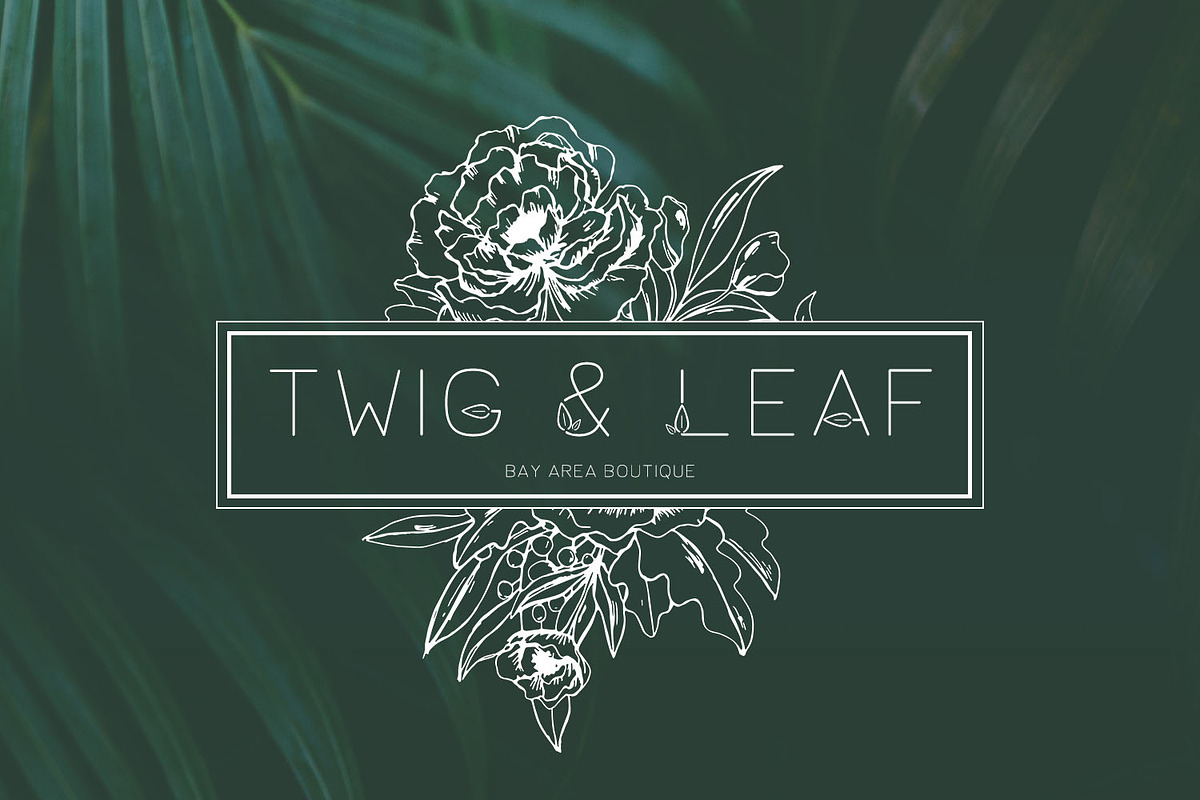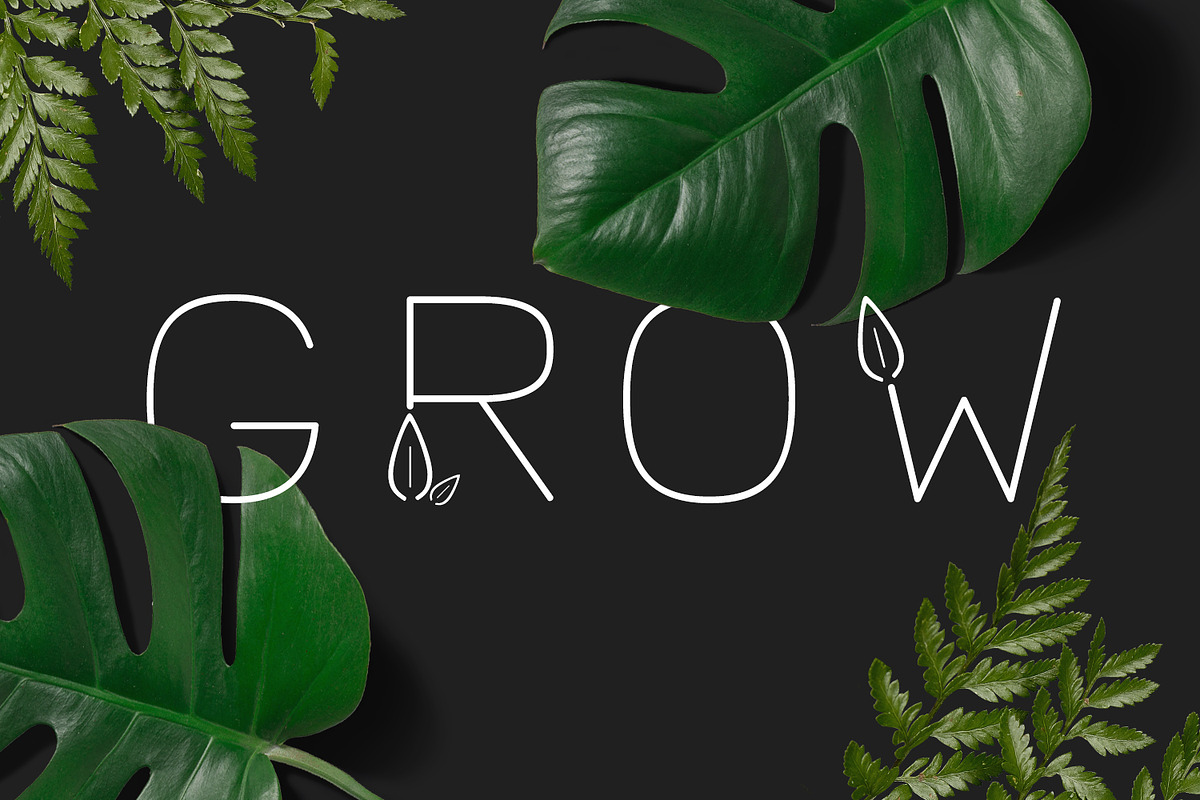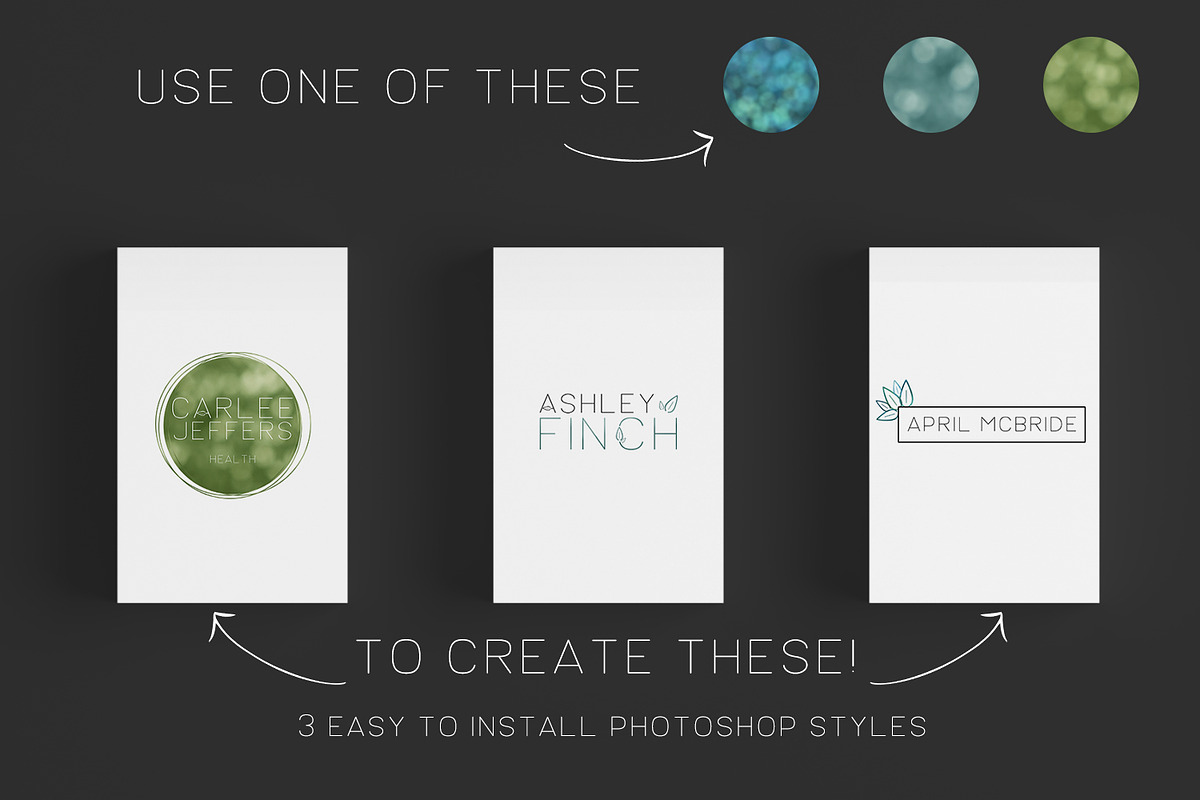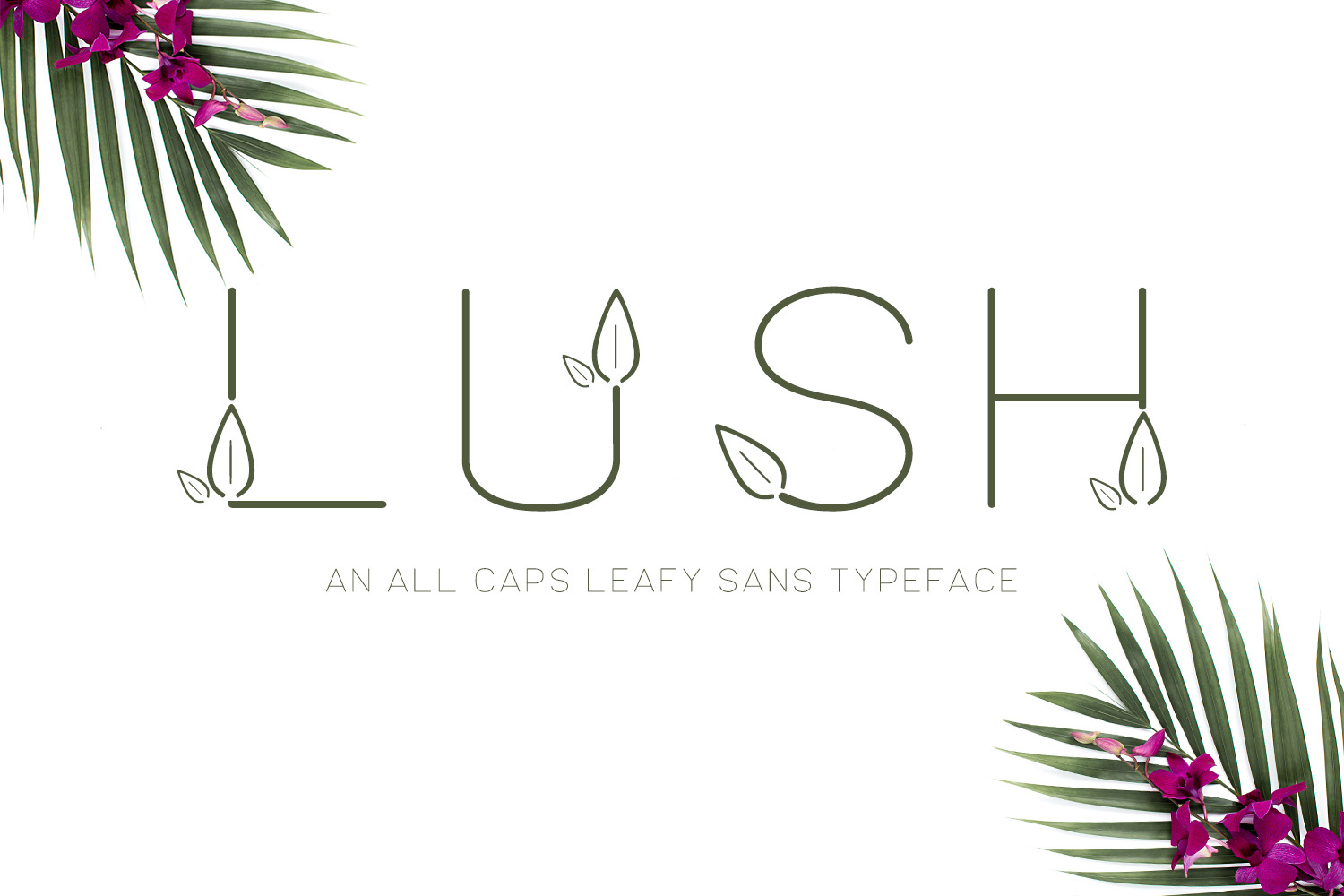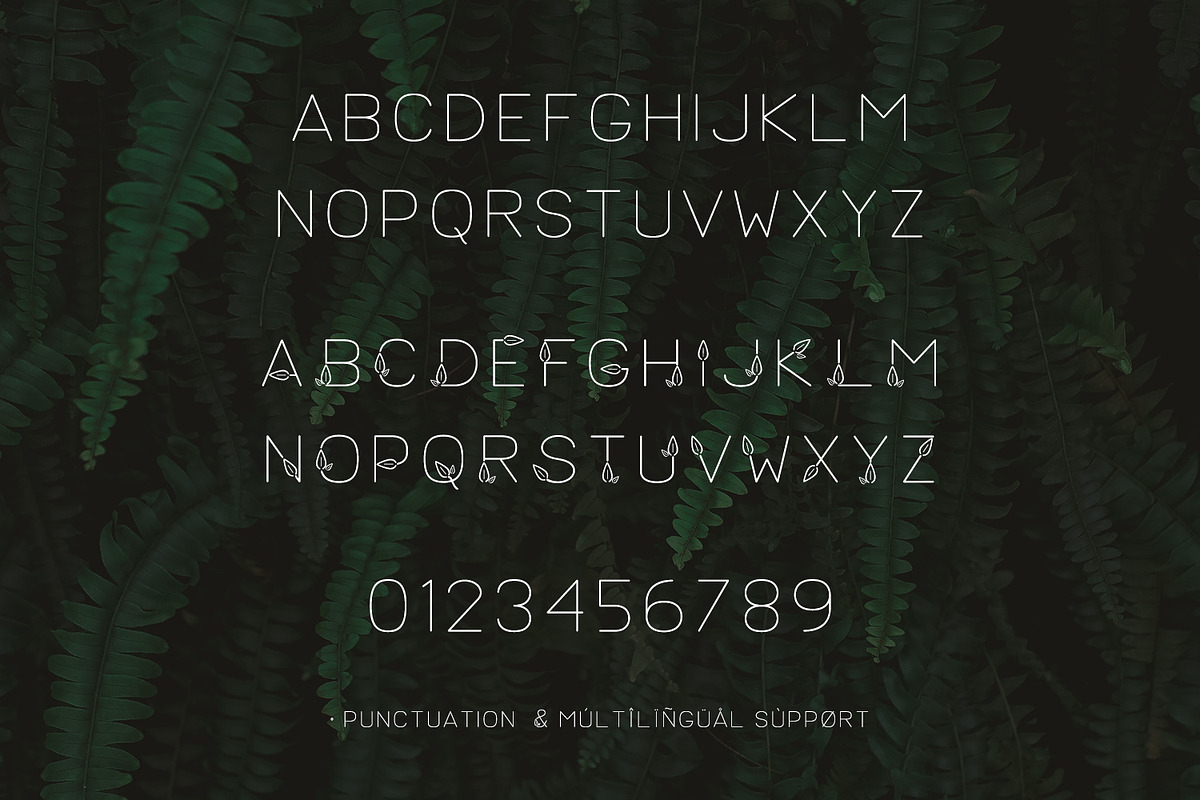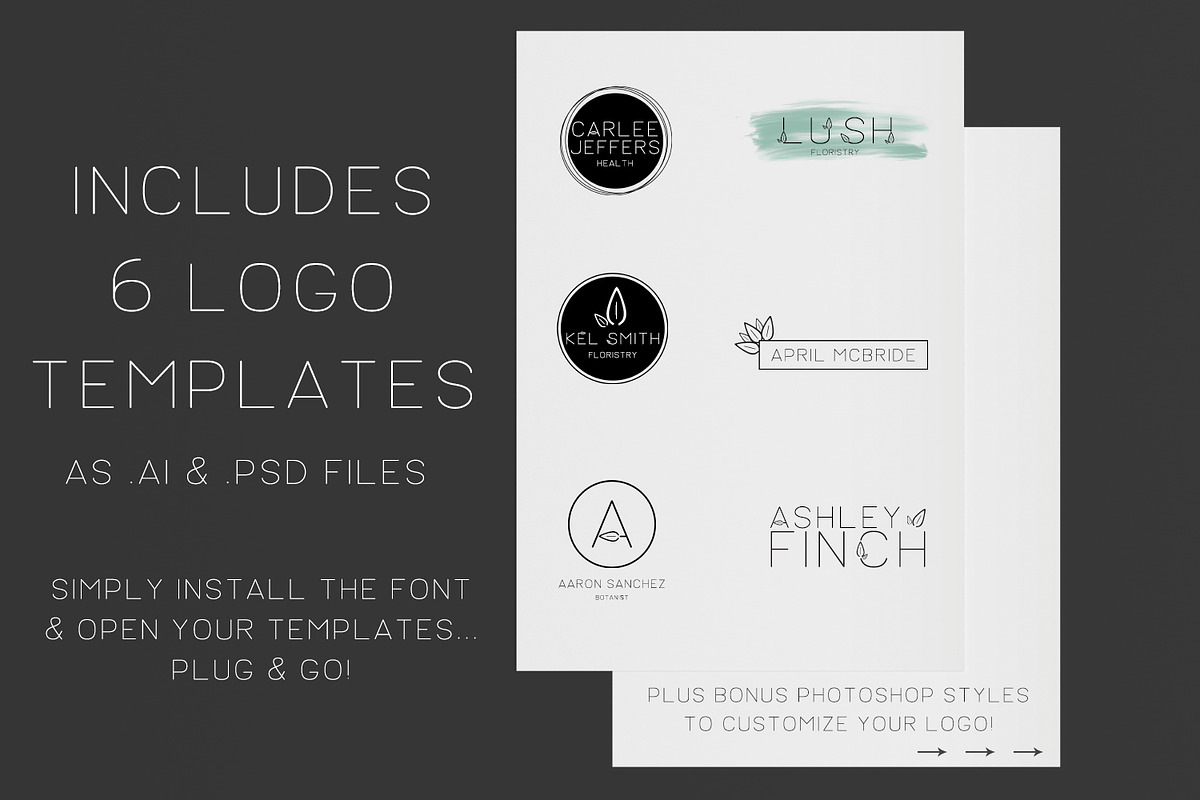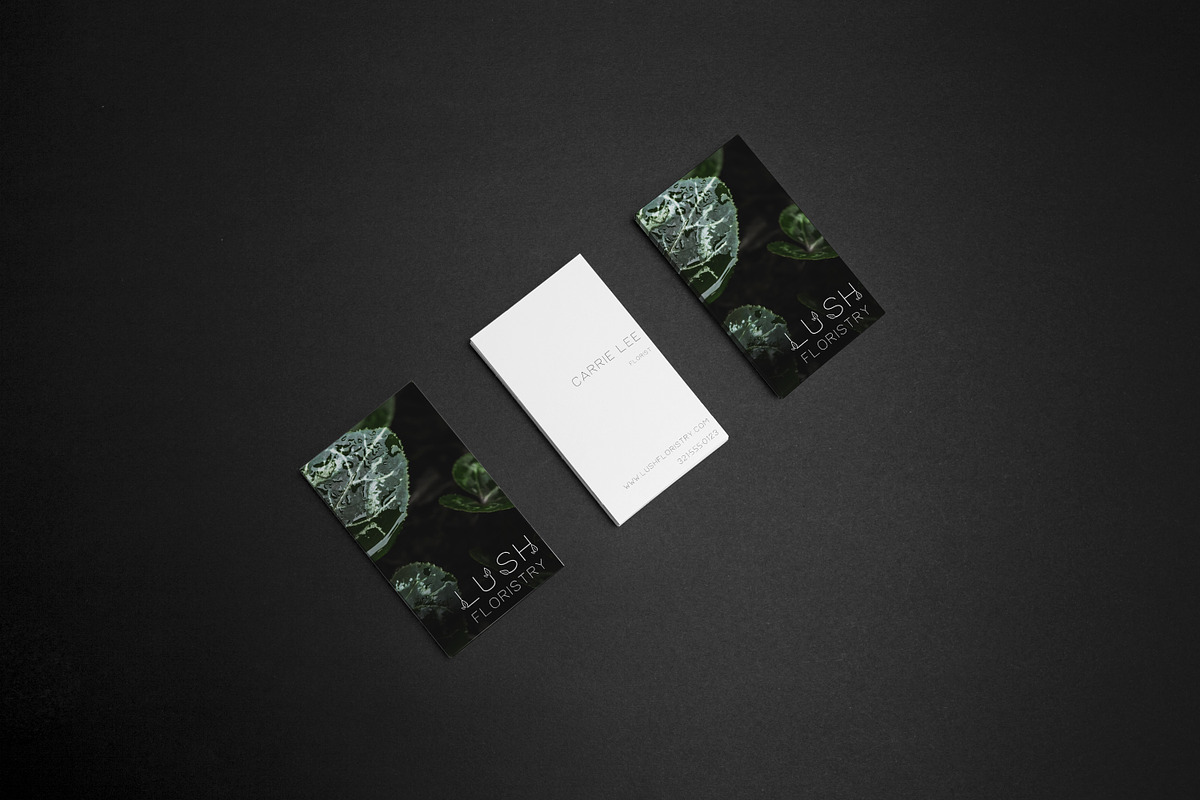
Lush Sans Font with Leaves
Introducing Lush, a sans typeface with leaf details!
Lush is an all-caps font, with the “lowercase” characters featuring the leaf details. Lush is a bit wide-set, modern, and includes numbers, punctuation, and Western European language support. Lush is perfect for health-conscious brands, brands centered on organic and natural products, florists & botanists, and more!